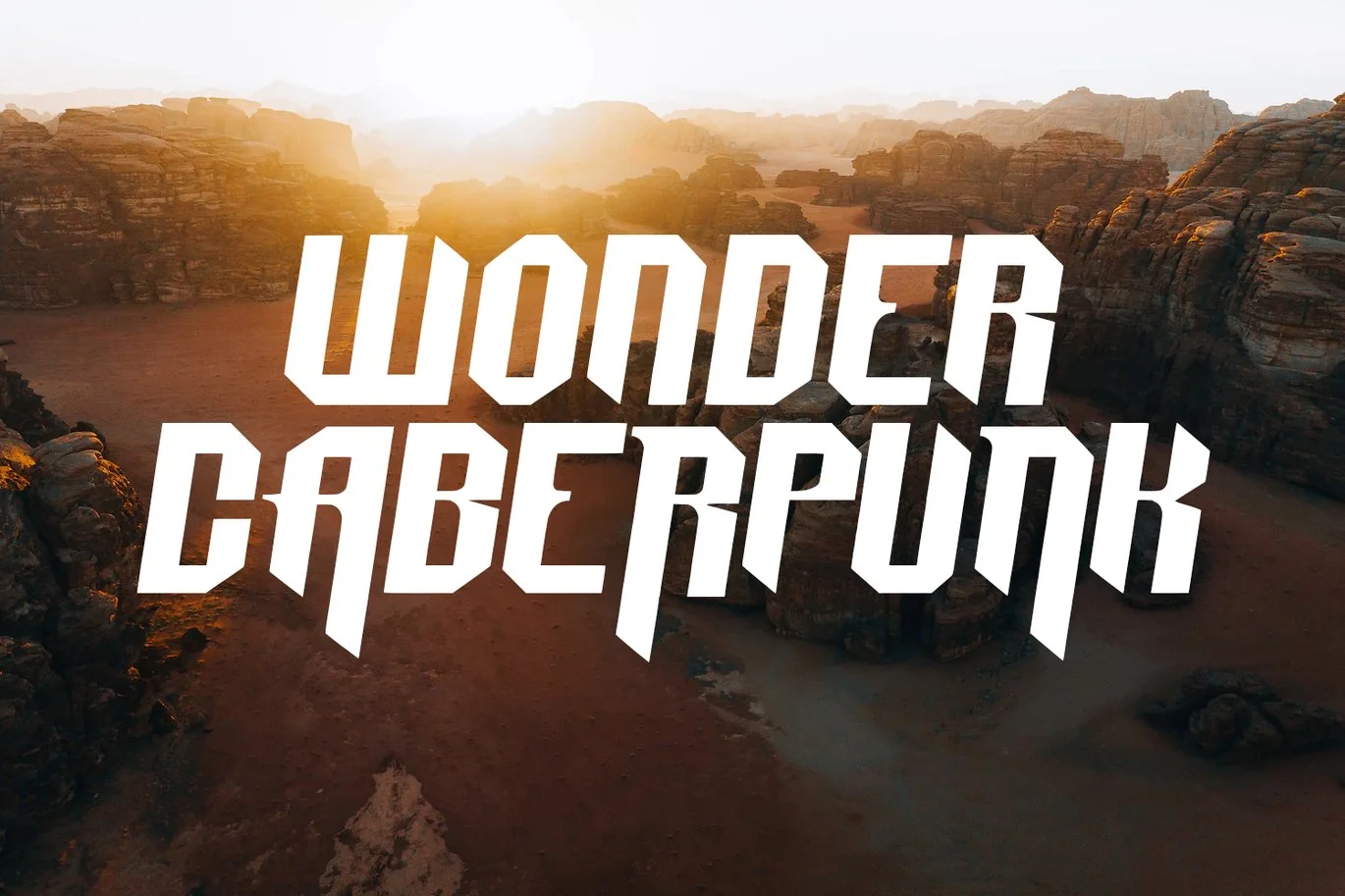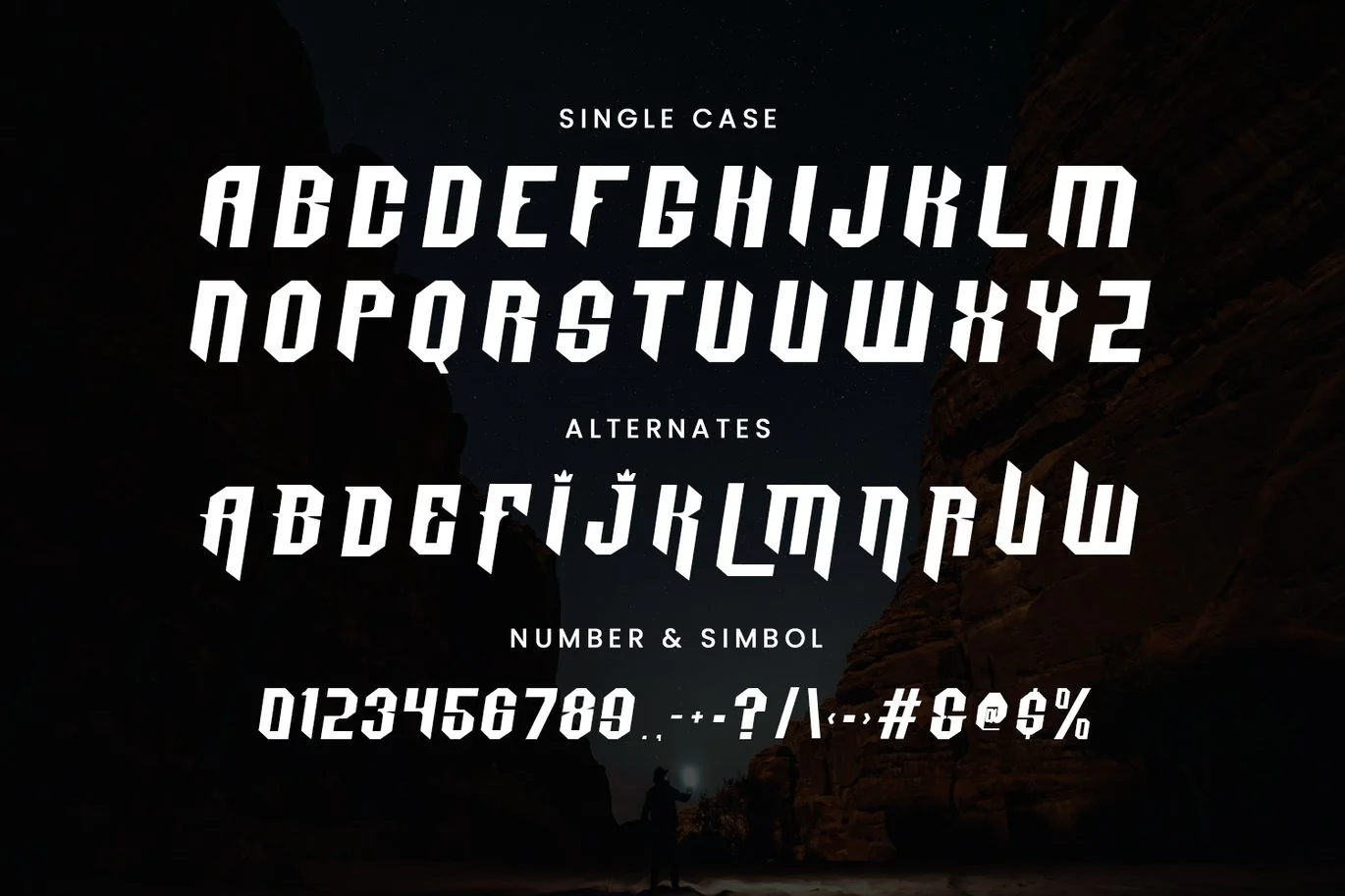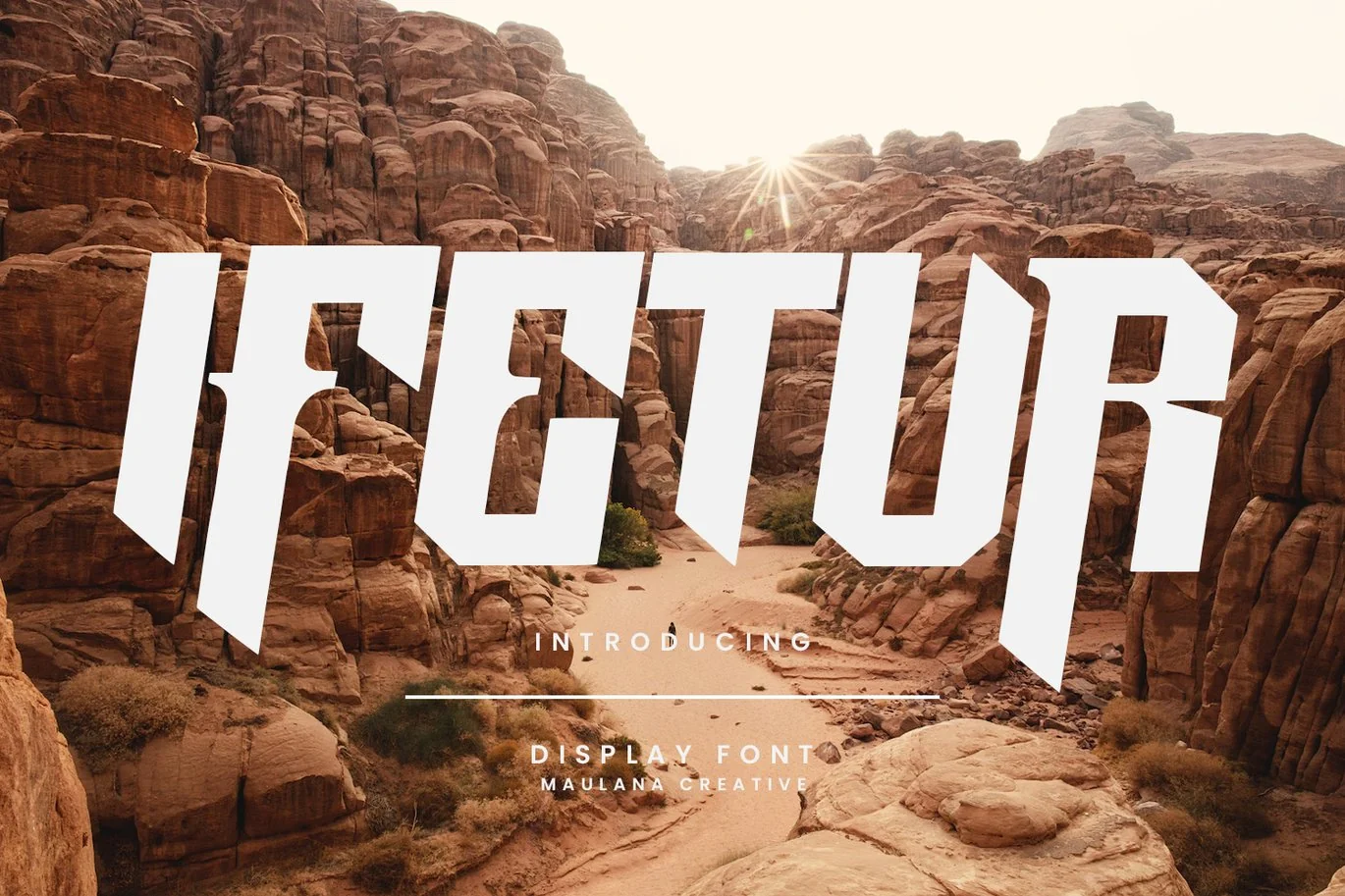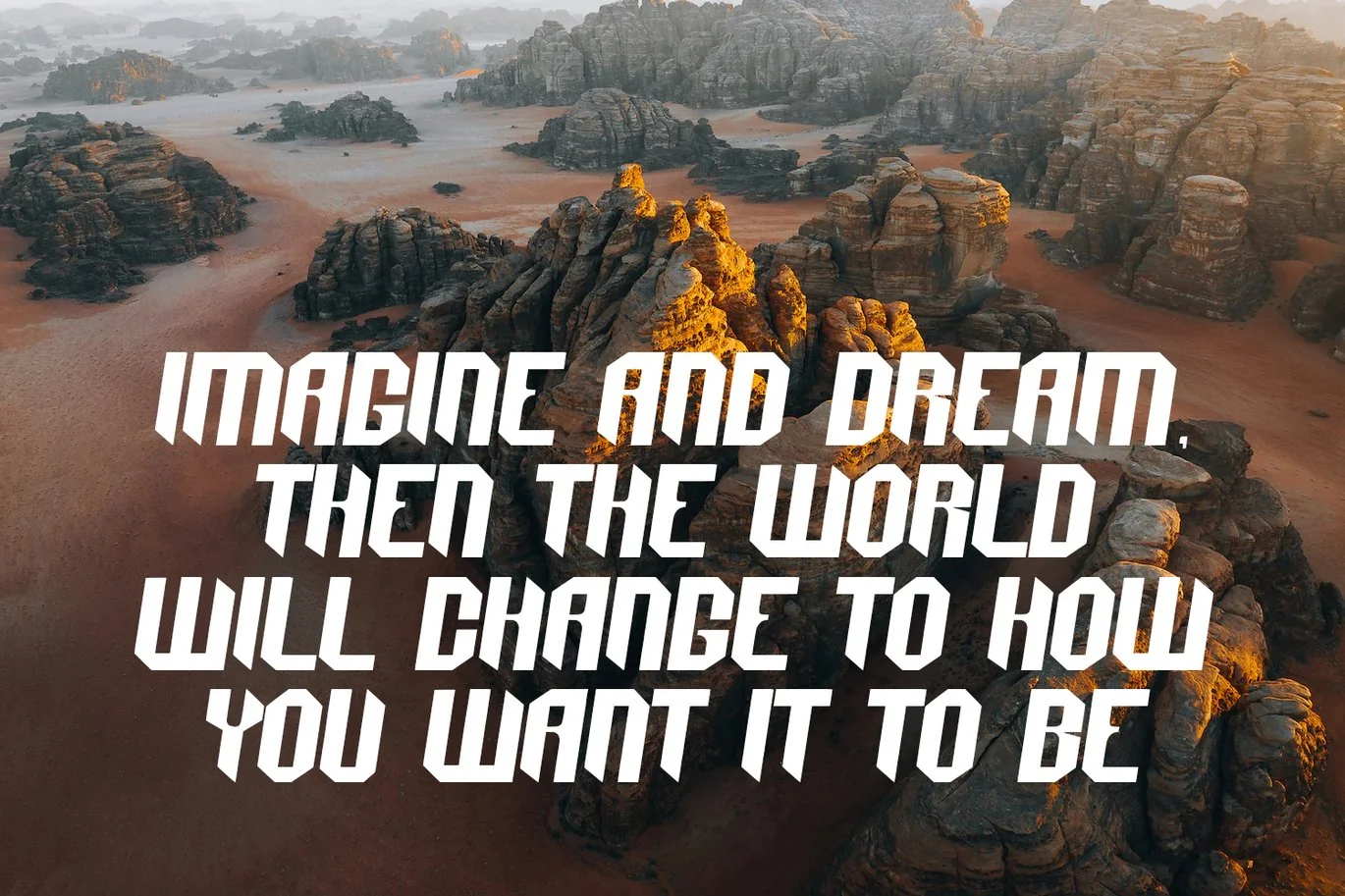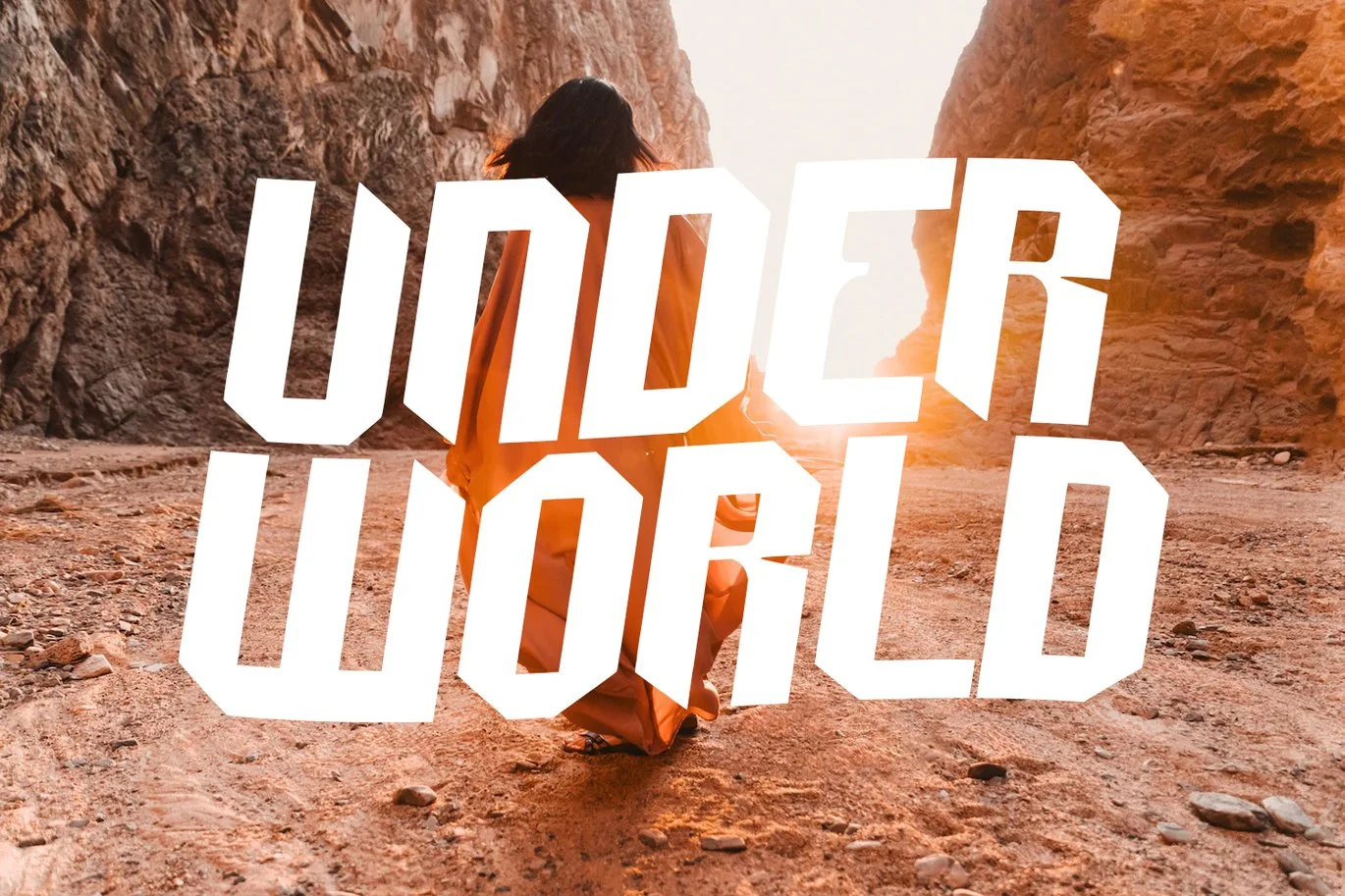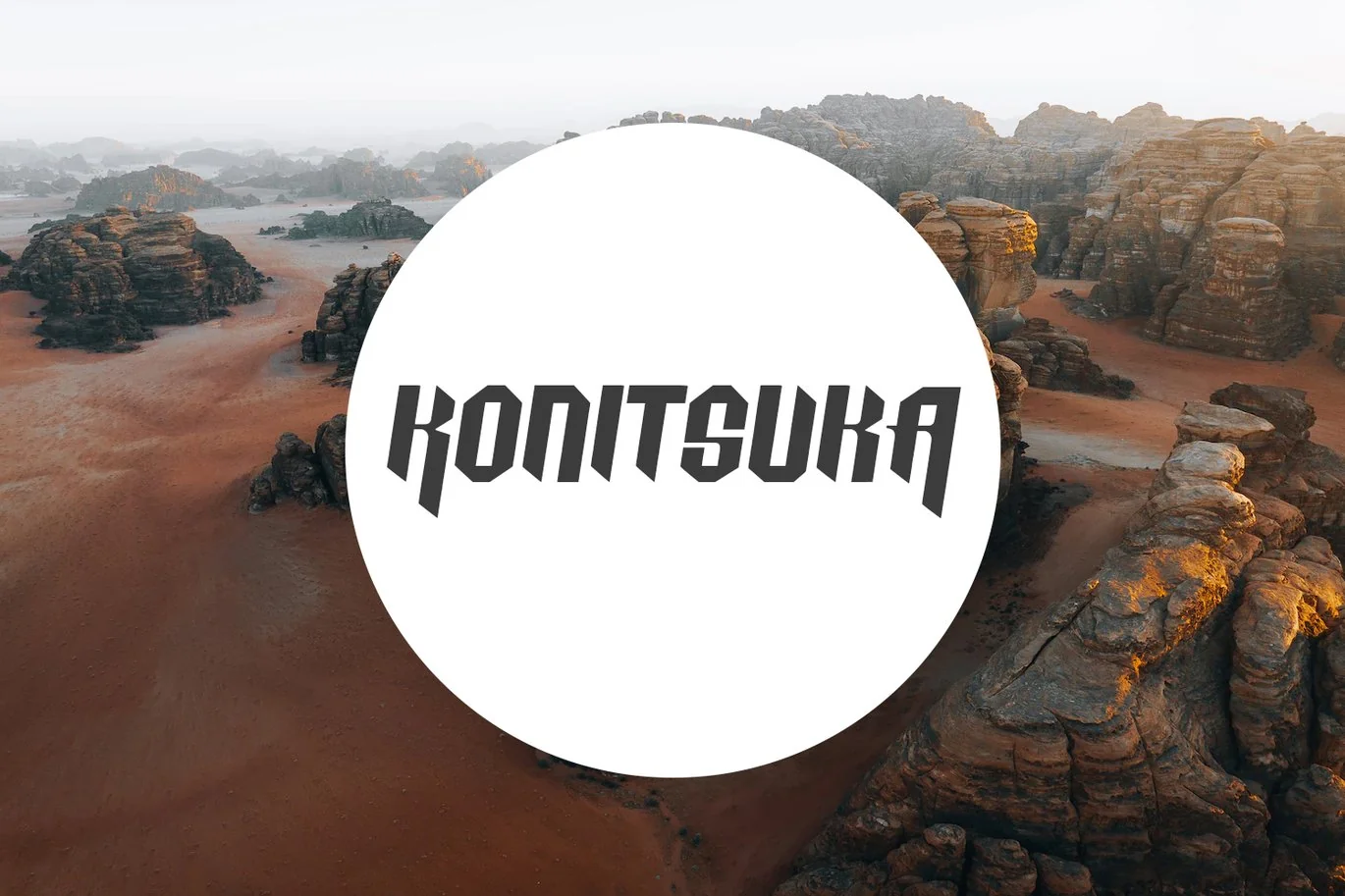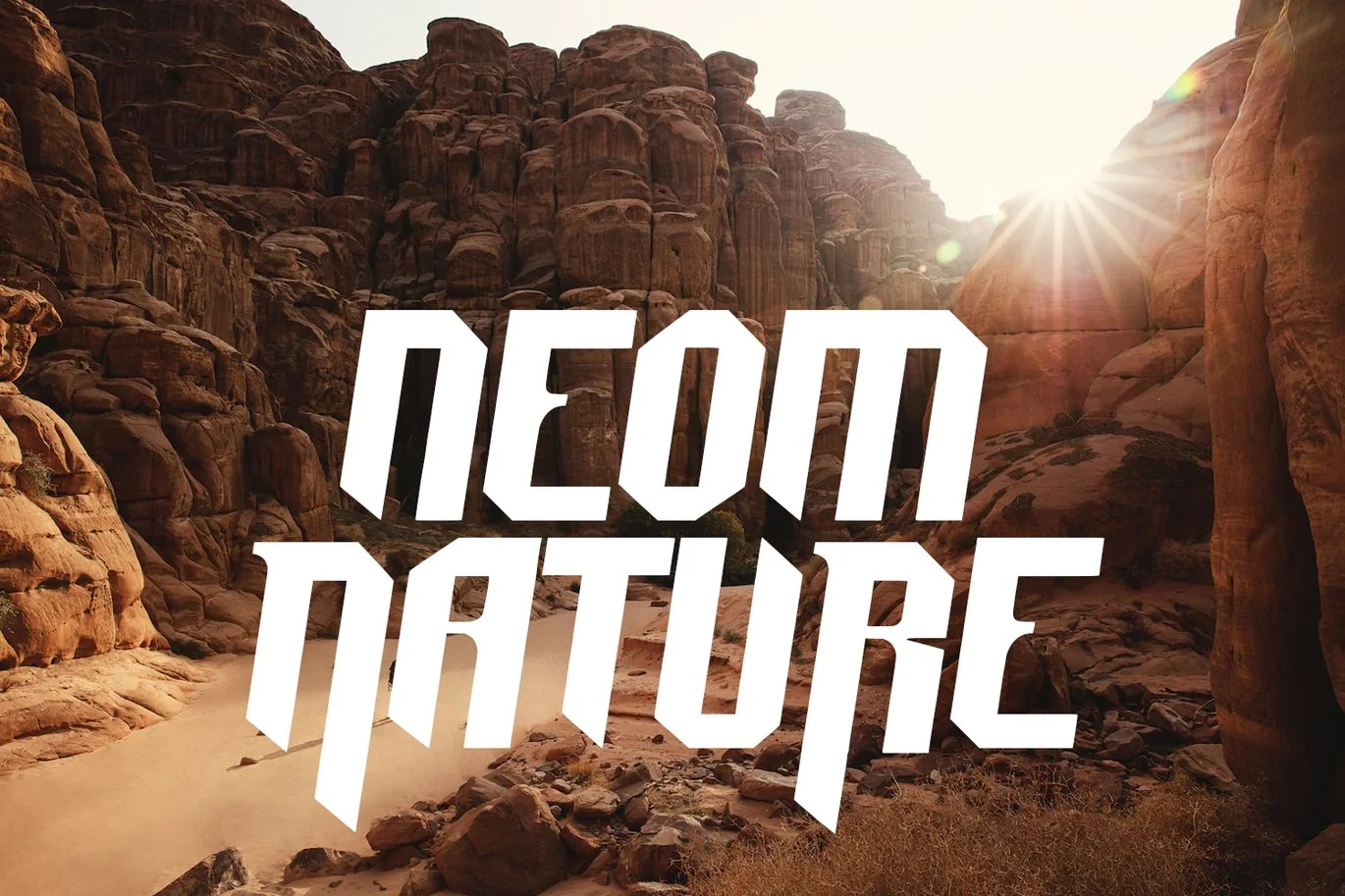
Ifetur Display Font
Ifetur display font. Bold stroke, fun character with a bit of ligatures and alternates. To give you an extra creative work. Ifetur font support multilingual more than 100+ language. This font is good for logo design, Social media, Movie Titles, Books Titles, a short text even a long text letter and good for your secondary text font with script or serif. Make a stunning work with Ifetur font.